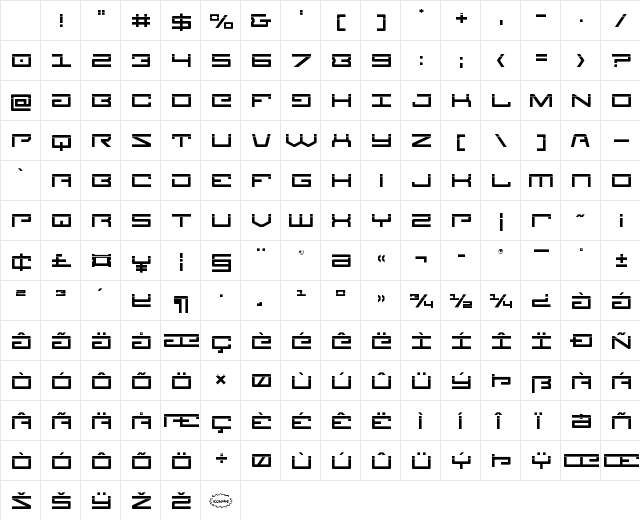
Complete Legion Laser Regular glyph index. Displaying only characters natively supported by Legion Laser Regular font.
Legion Laser is a composed and adaptable typeface that performs quietly and consistently across a wide range of design contexts.